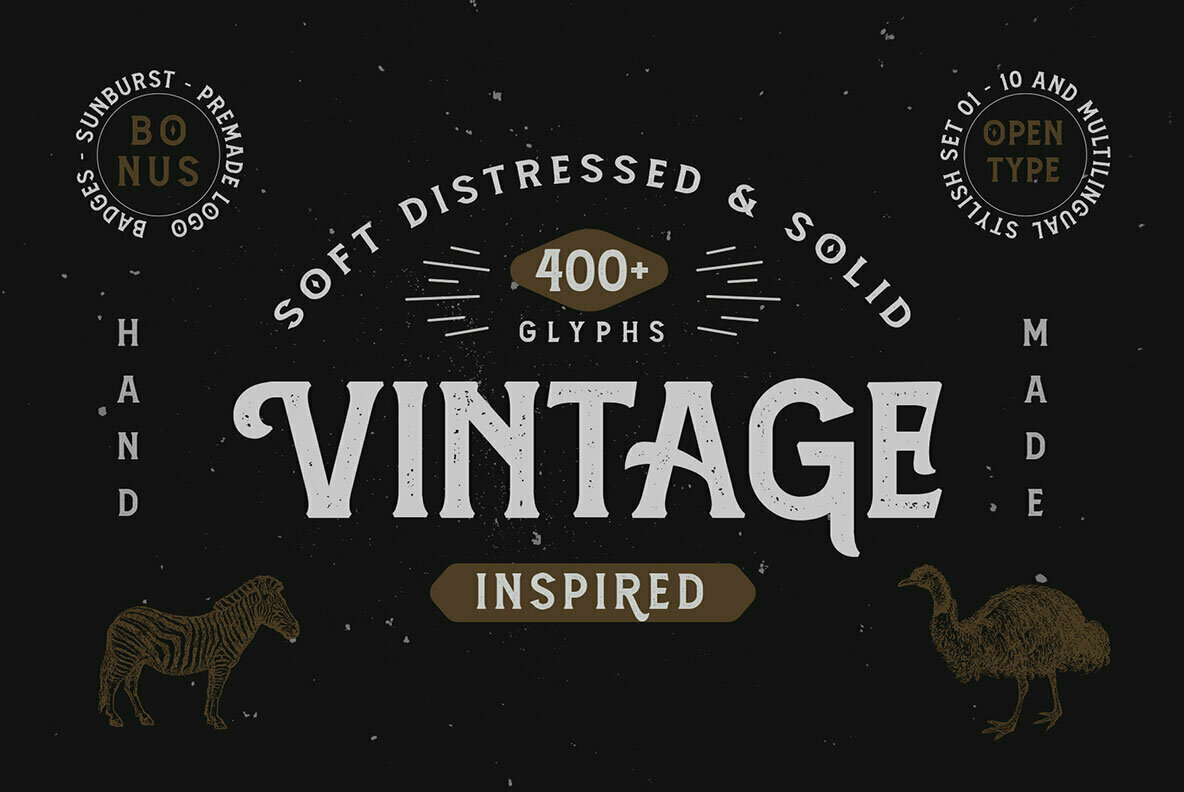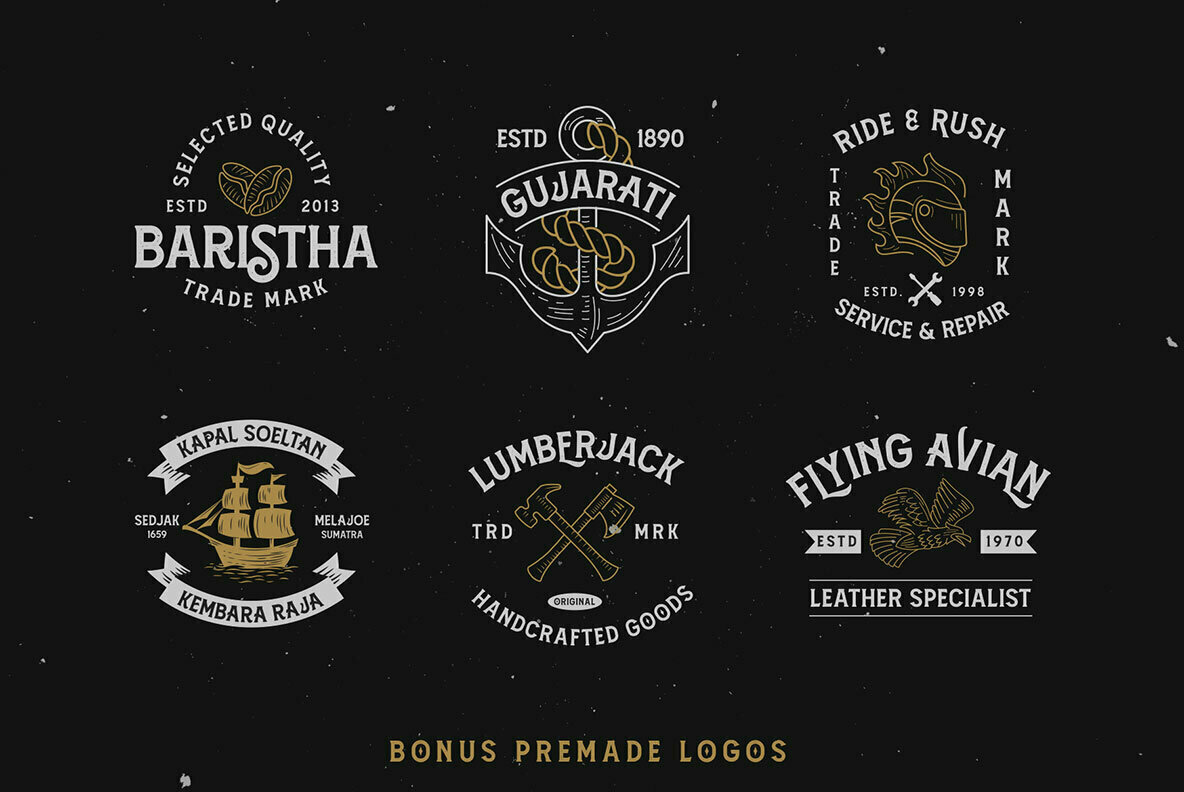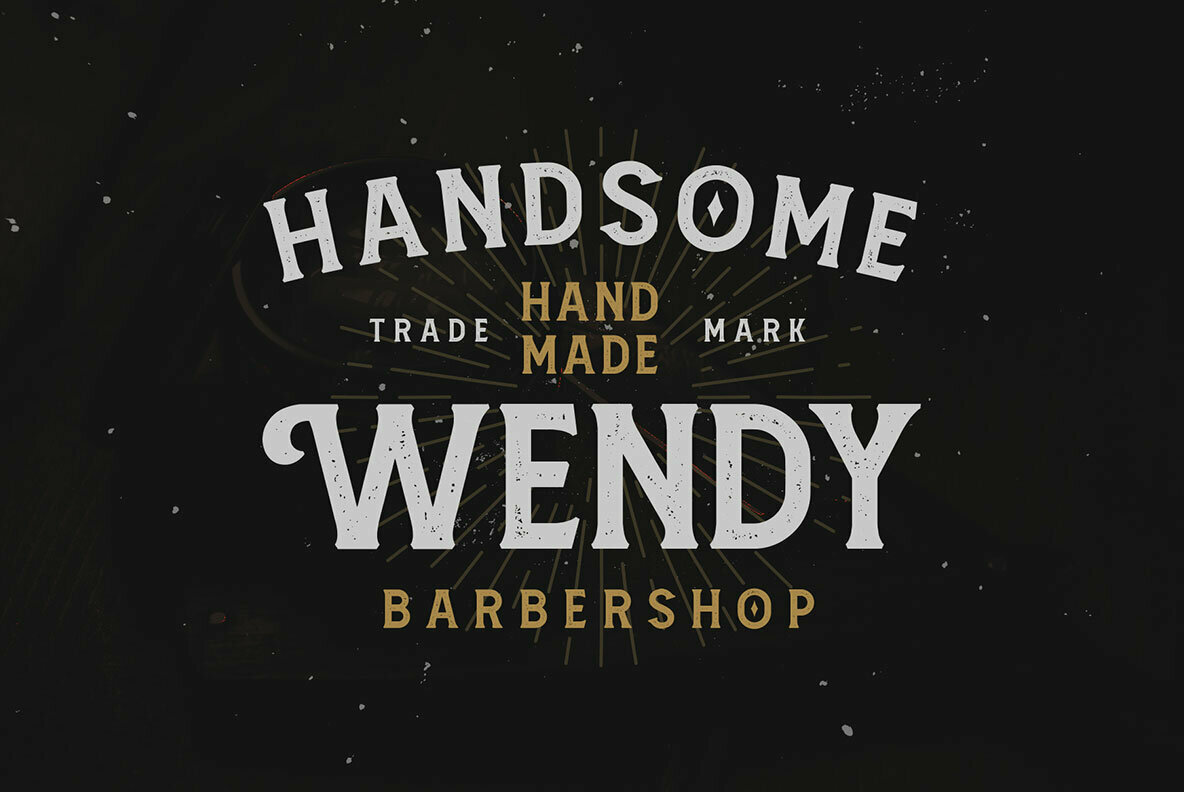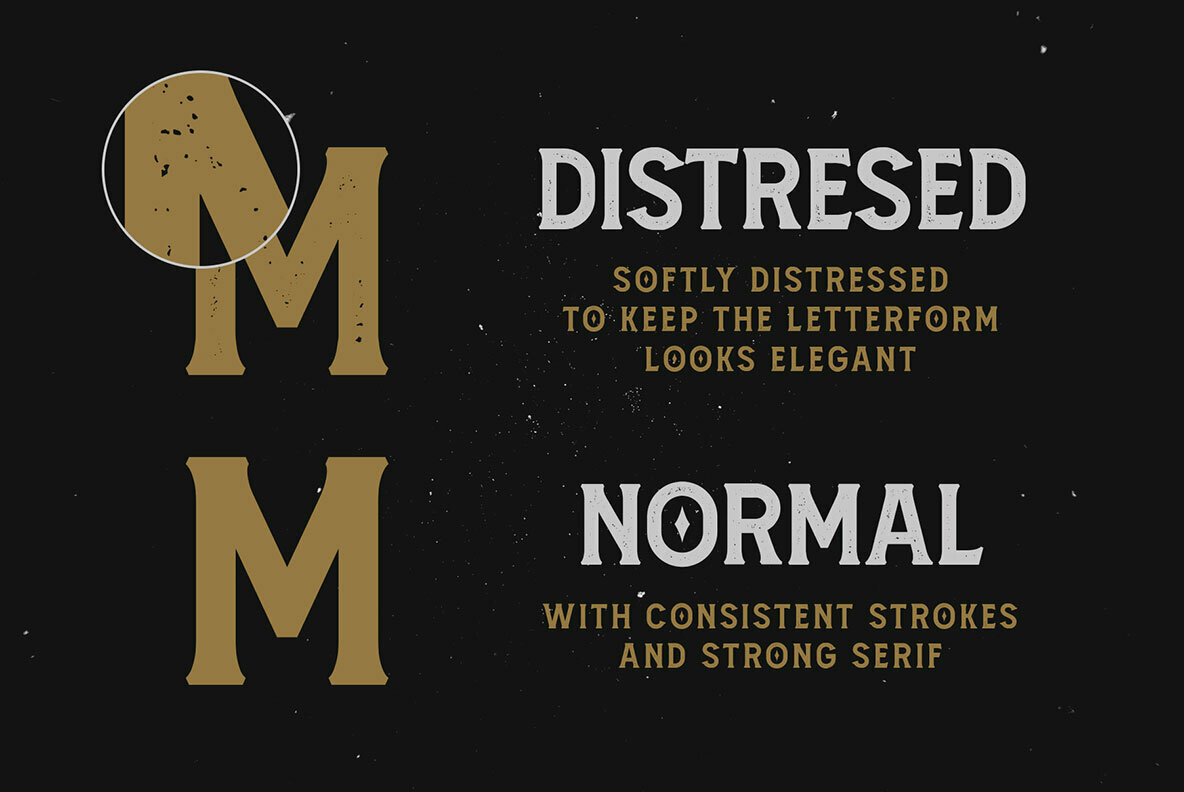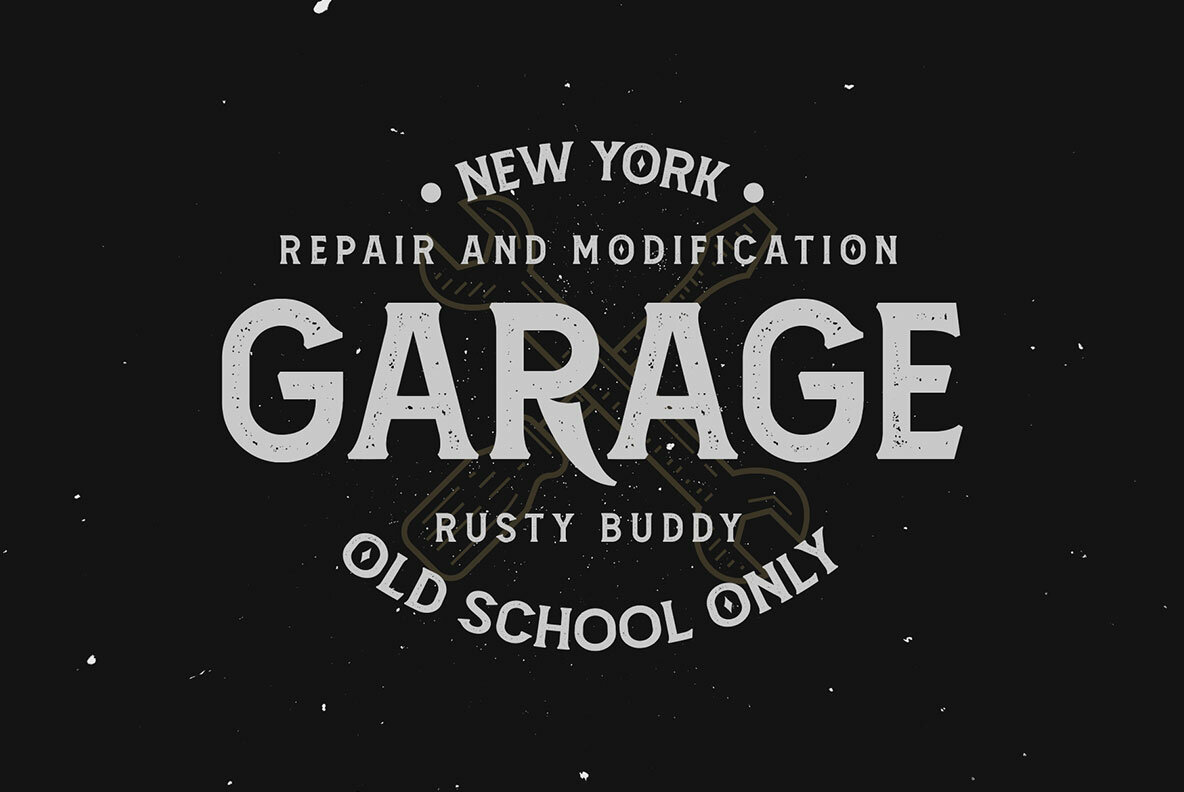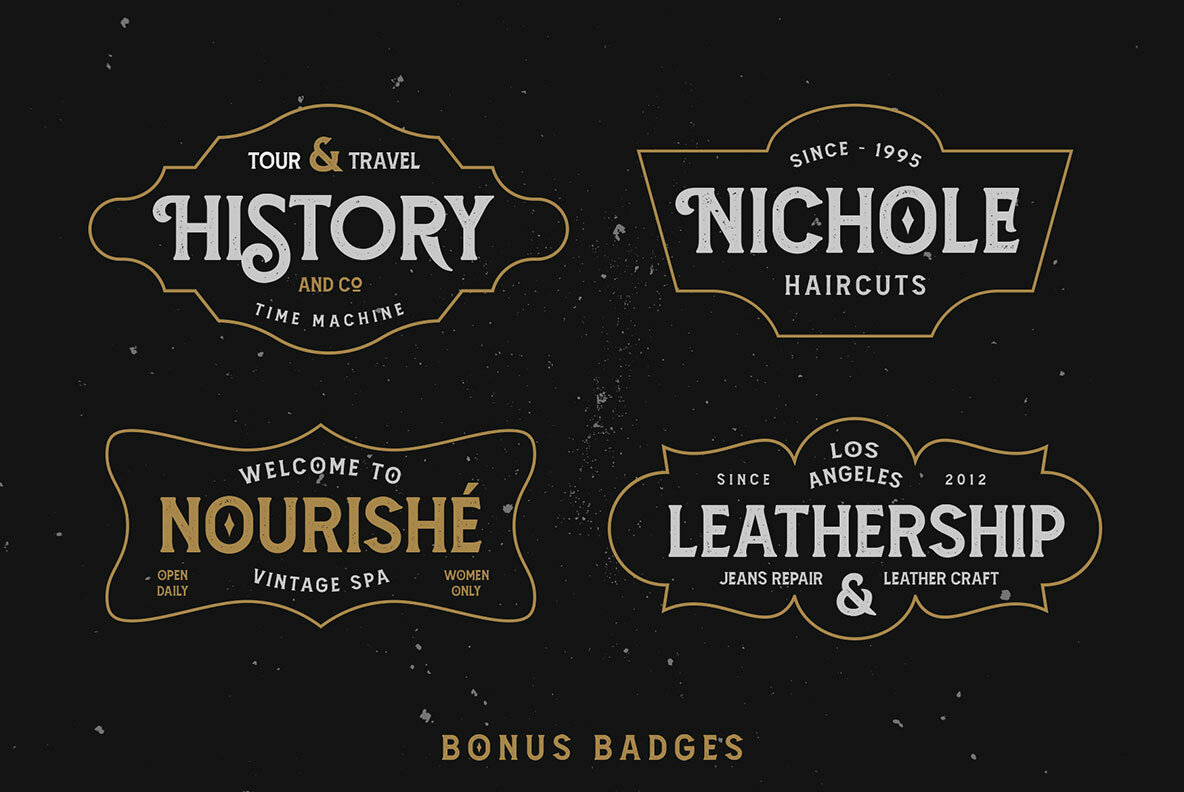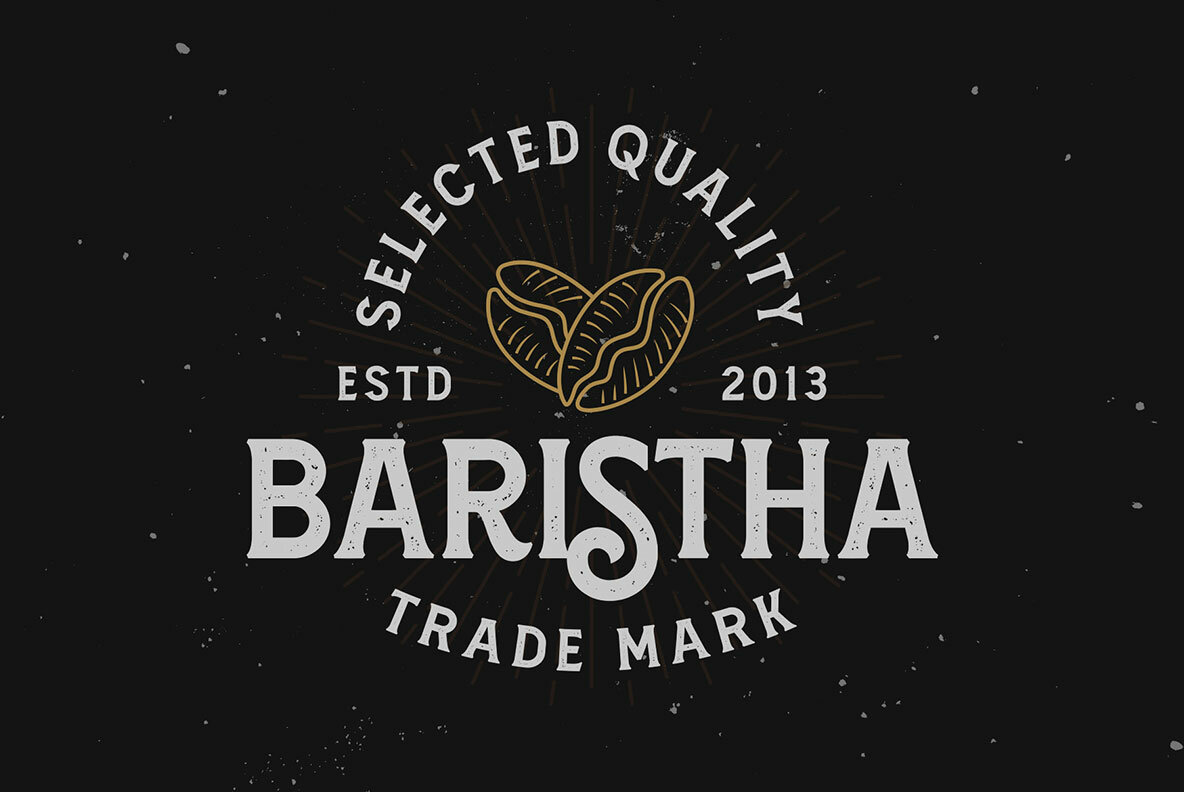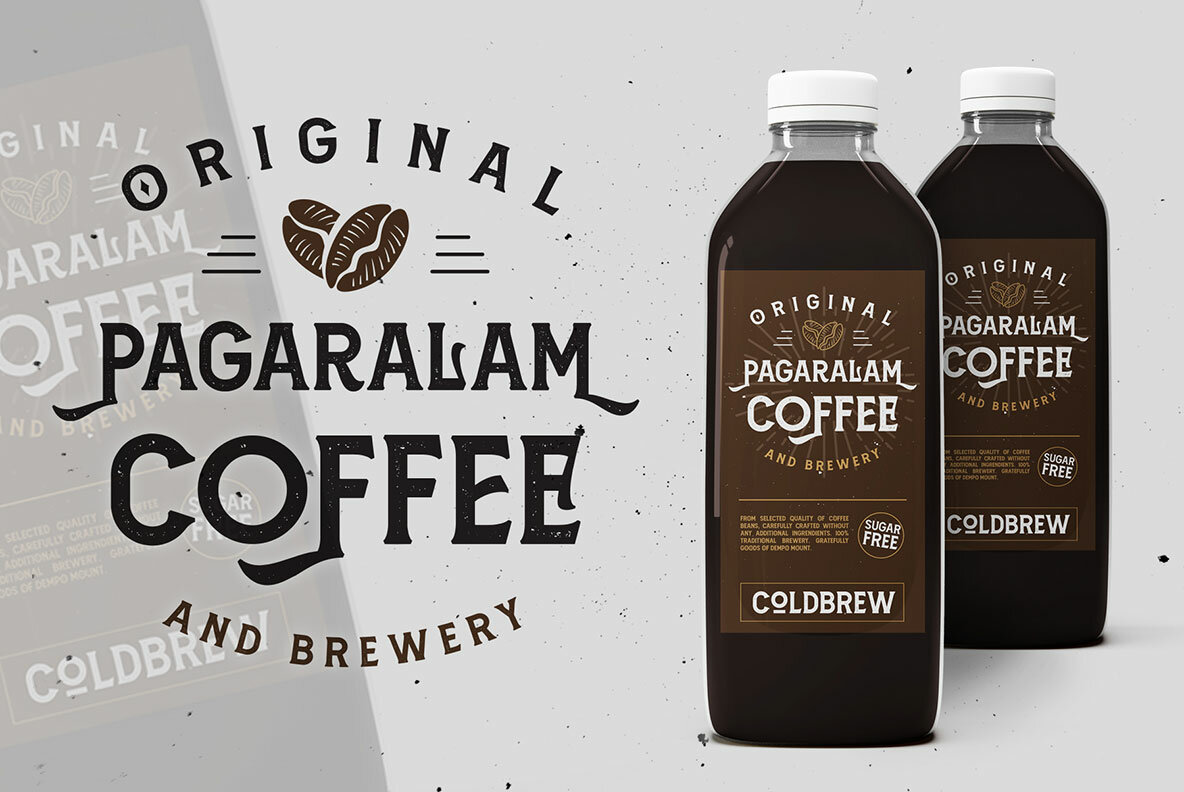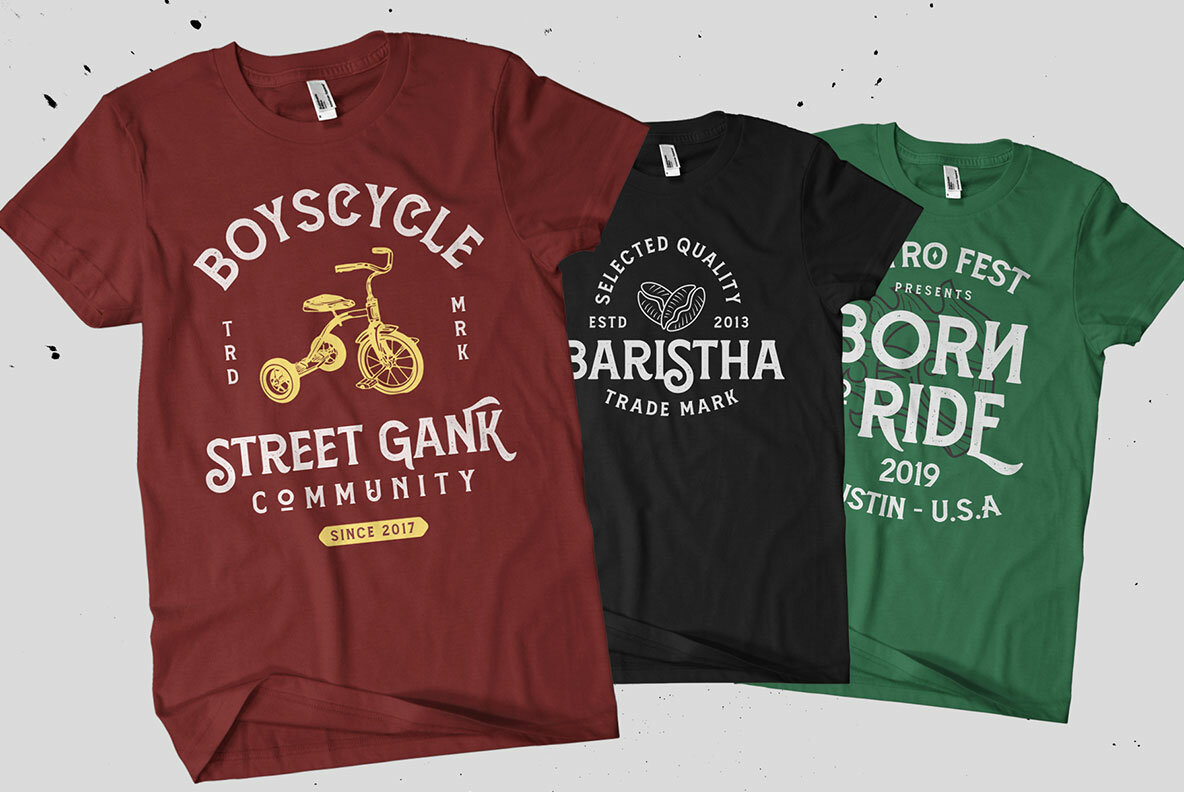
Amnestia is a vintage serif typeface with a modern-classic feel. Inspired by vintage signage and minimalist serif style. All-caps font with 100+ alternates that gives you more options to get many variations in your designs. Amnestia has a medium height that looks perfect for display or sub-text. Amnestia available in 2 styles distressed and normal, great choice to be used in logo, insignia, apparel, label, packaging, poster and etc.
Amnestia has a stylistic set 01 - 10 as the alternates of the letterforms. Some alternates have swashes and tails that you can explore more possibilities to get typographic looks. Also with bonus vector pack to boost your project easier.